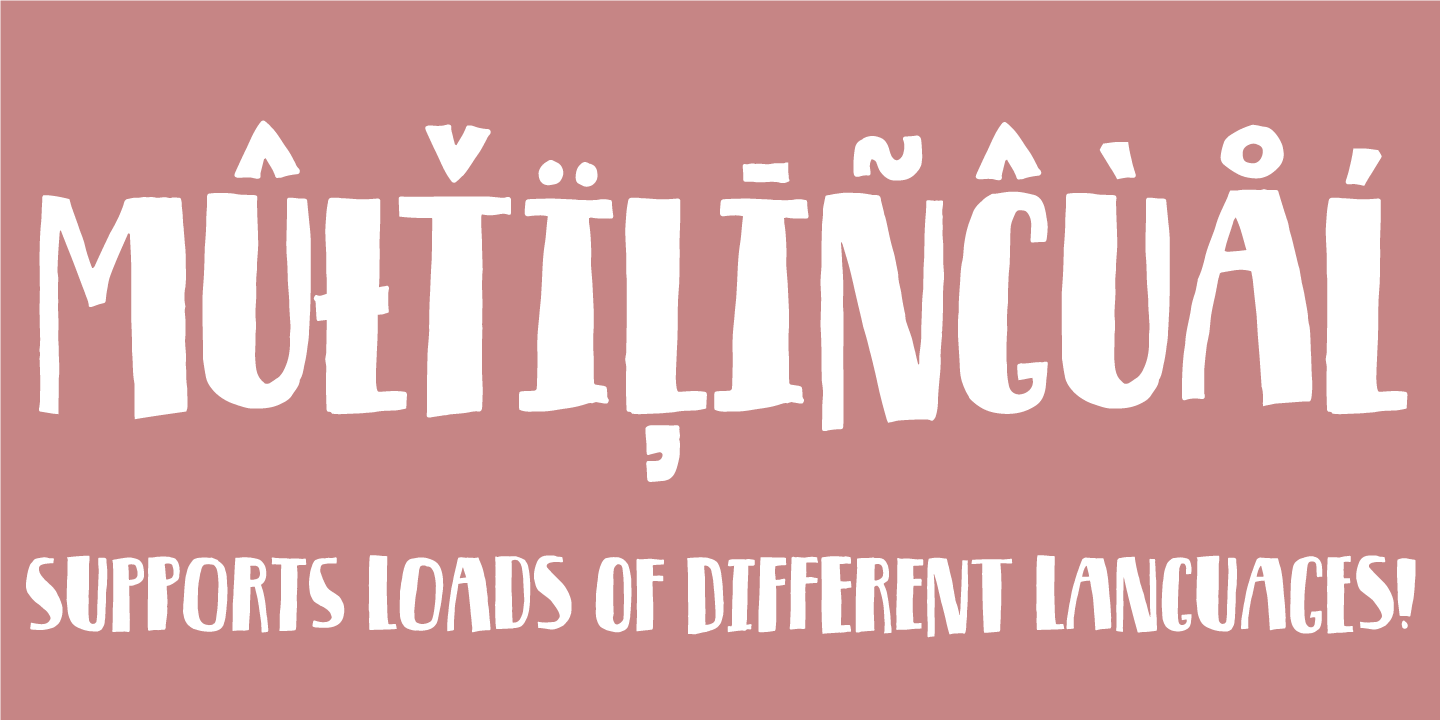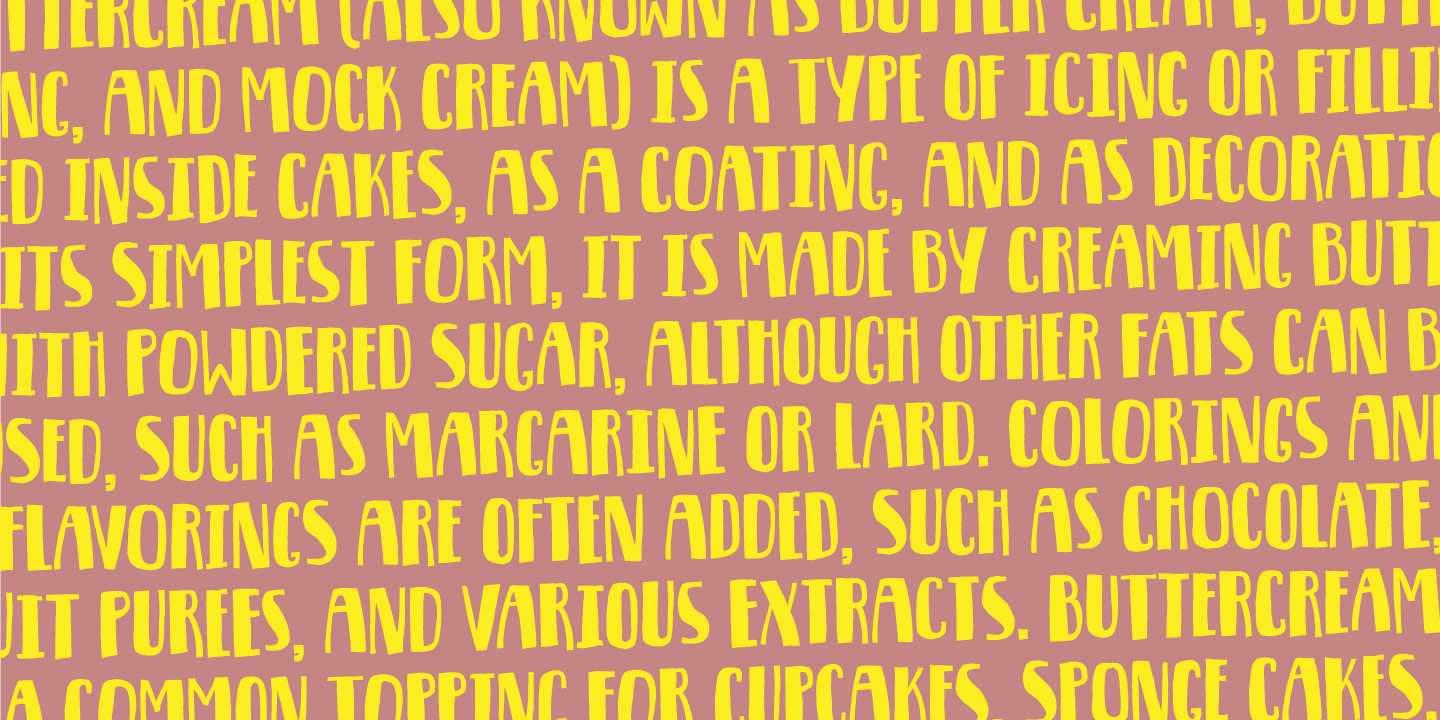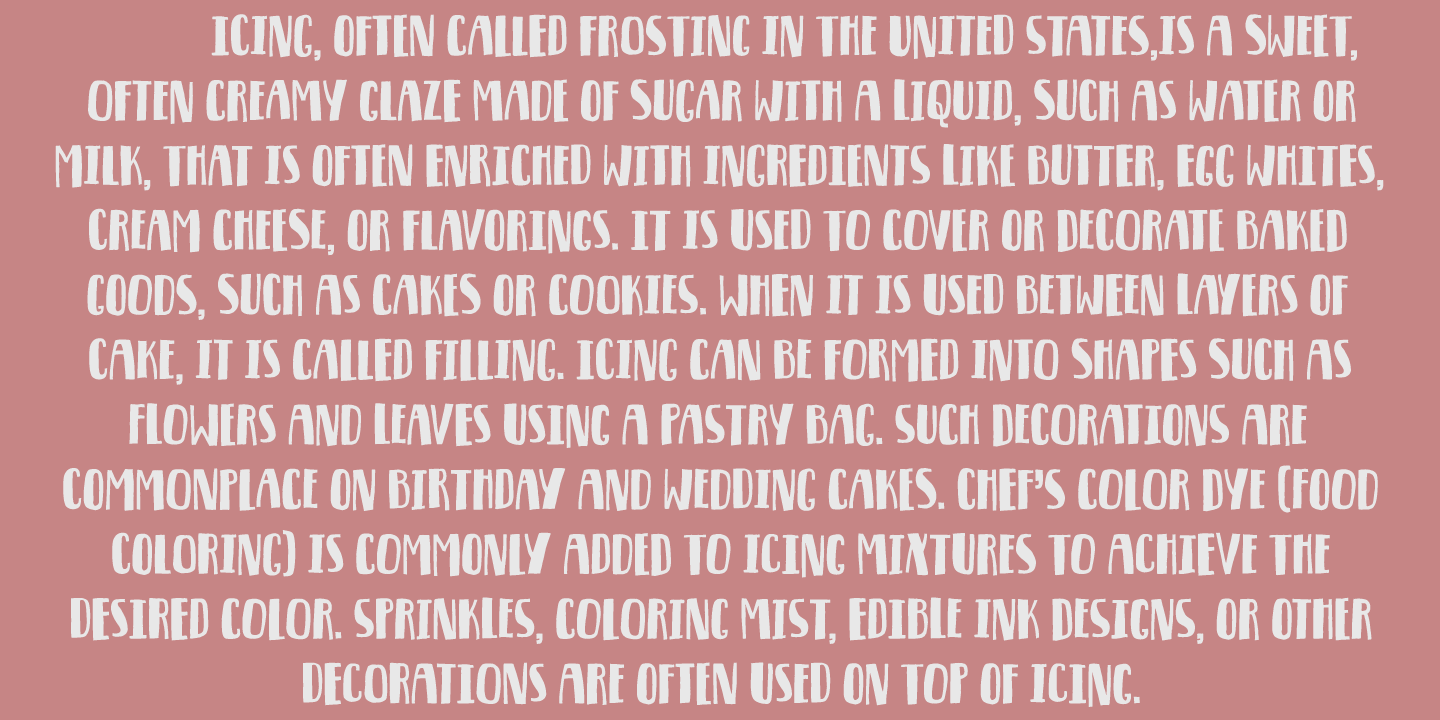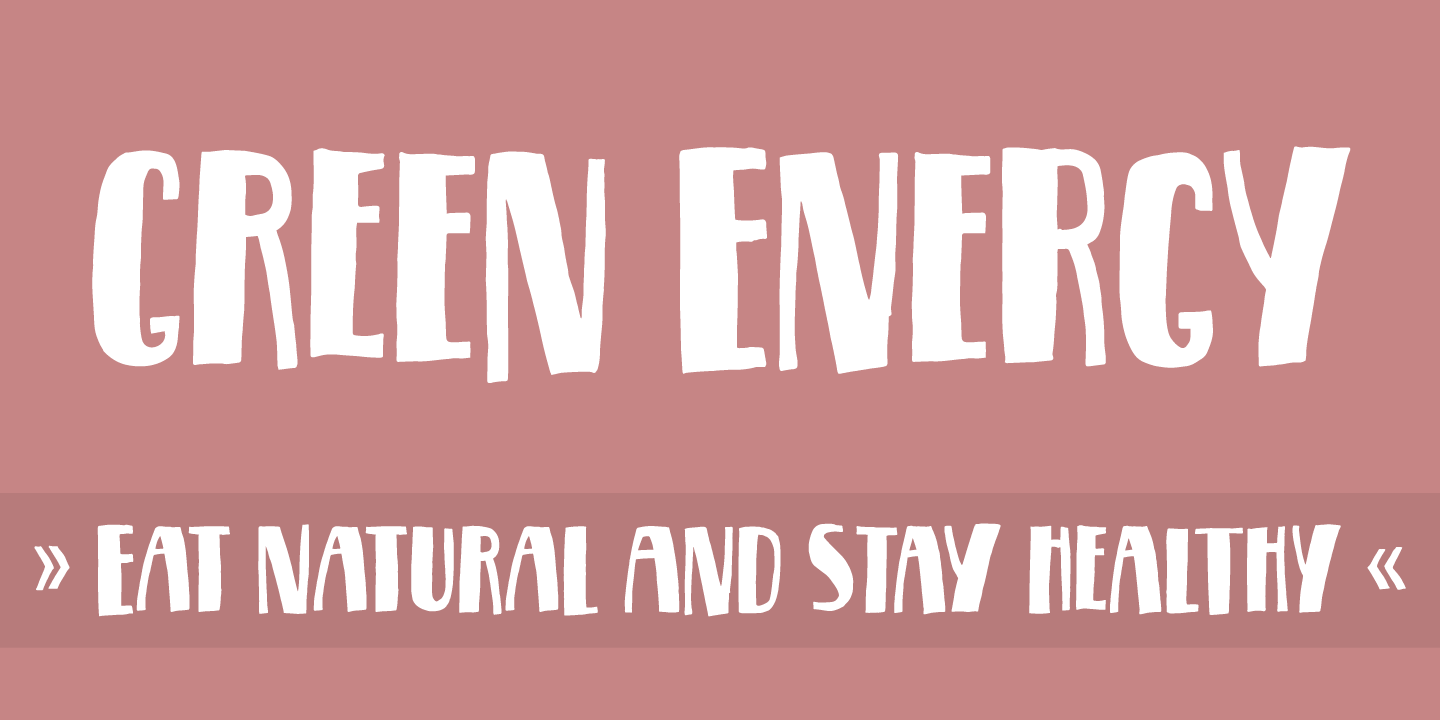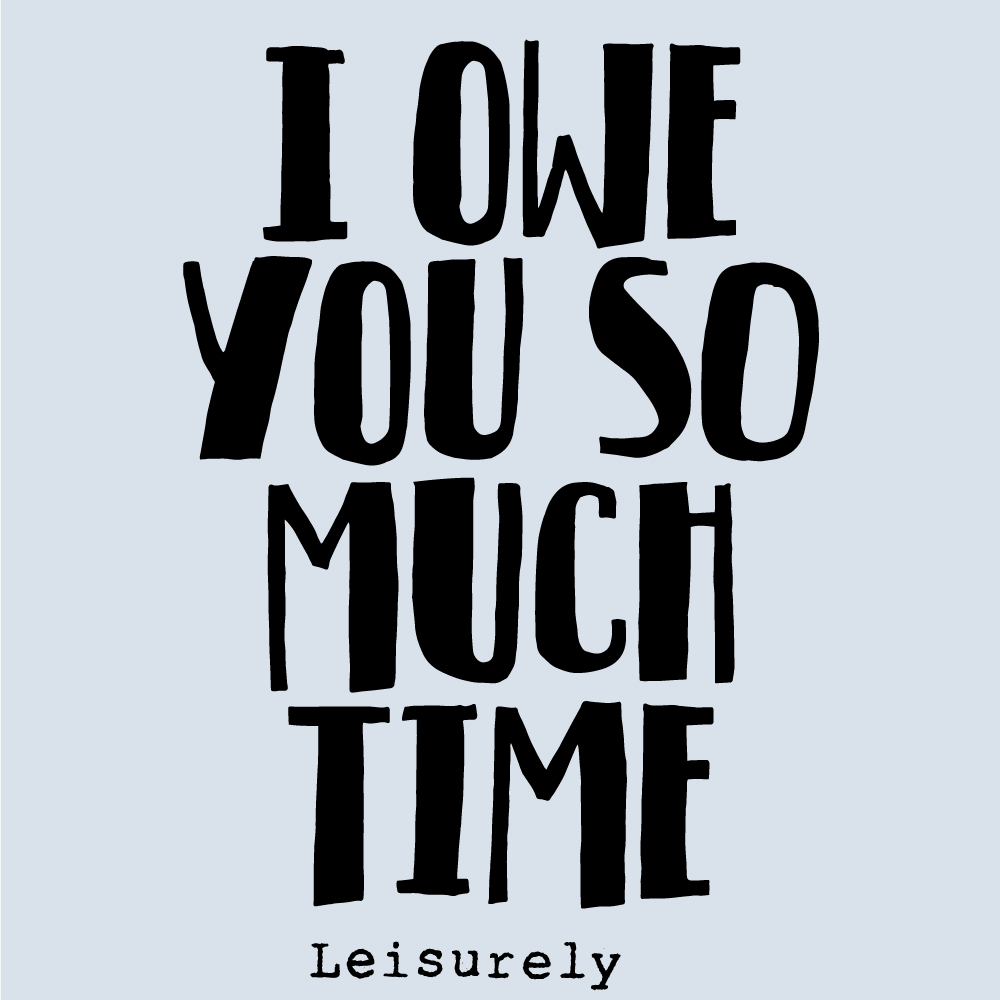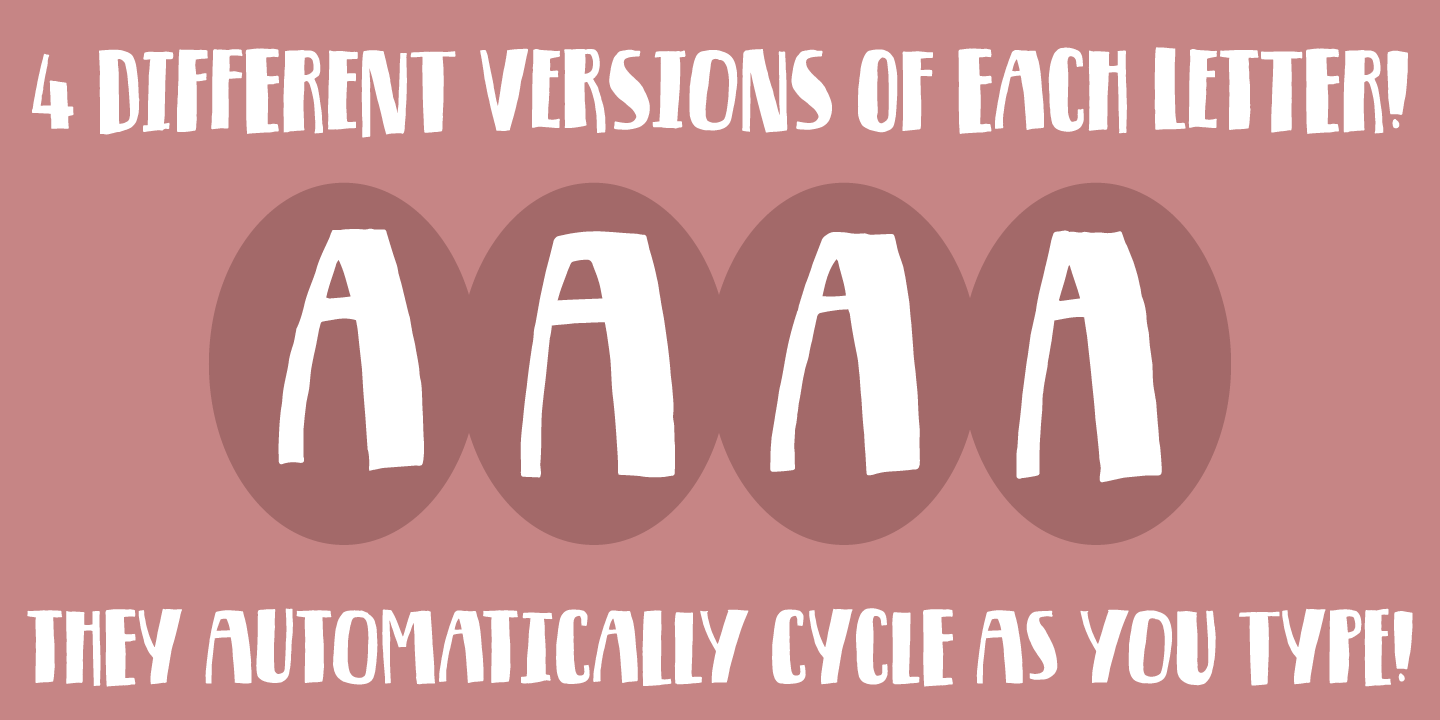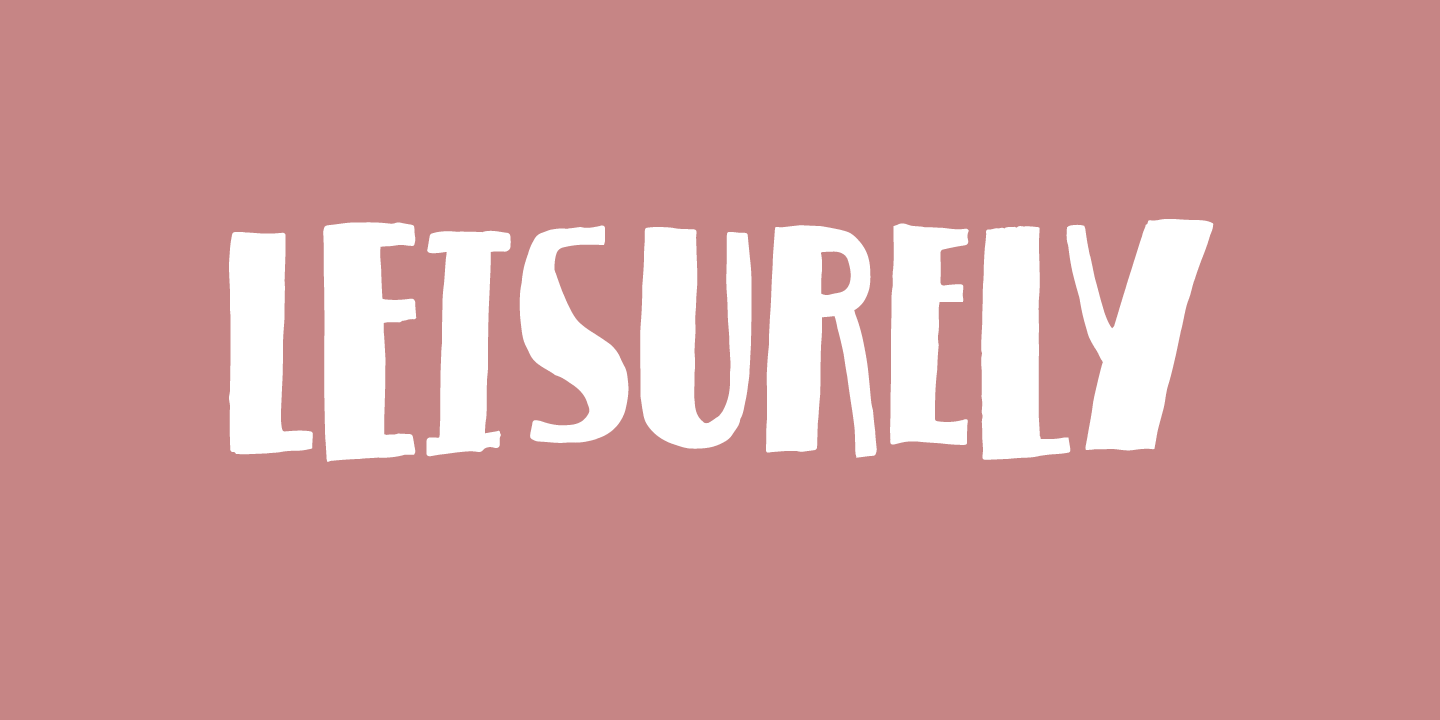
Leisurely
Inspired by 1930'ies posters...I guess you can call this retro, and still use it for postcards or cool flyers that needs that "retro meets 21. century" look! :)
The font has multilingual support as well as contextual alternates!